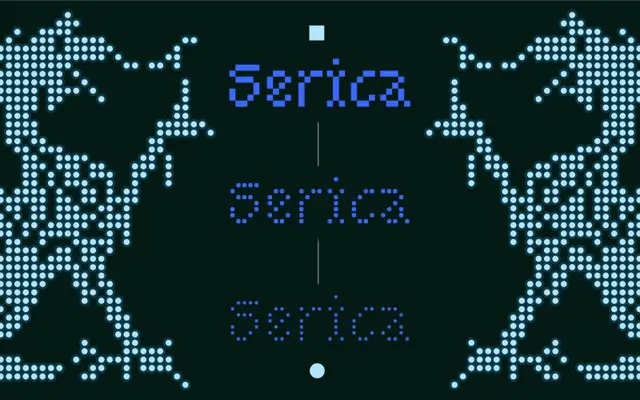
Serica specimen from The Designers Foundry
A uniwidth dot matrix family in 23 styles, drawn from Dutch merklap embroidery and structured around three terminal shapes: Circle, Square and Squircle.
Built on a strict 7-unit cap height grid, the family avoids overlapping strokes to stay true to its embroidery reference, with steep diagonal angles producing a rhythmic texture across all weights. Three subfamilies spanning Thin to Black (Circle extending to Black) are supported by a variable font and a generous feature set including swashes, oldstyle numerals, compact and circular alternates, ligatures and localisation. Wide Latin Extended coverage runs to over 100 languages.
A uniwidth dot matrix family built on a 7-unit cap height grid, organised into three terminal-shape subfamilies (Circle, Square, Squircle). Its pixel-grid construction and embroidery origins place it firmly in display rather than general-purpose sans territory.